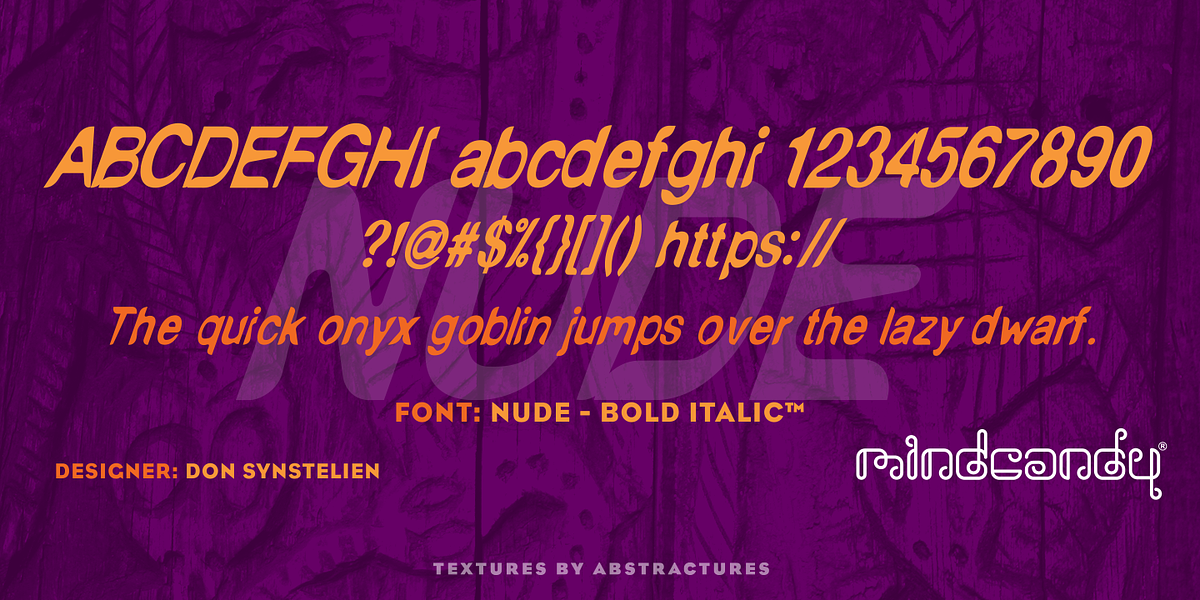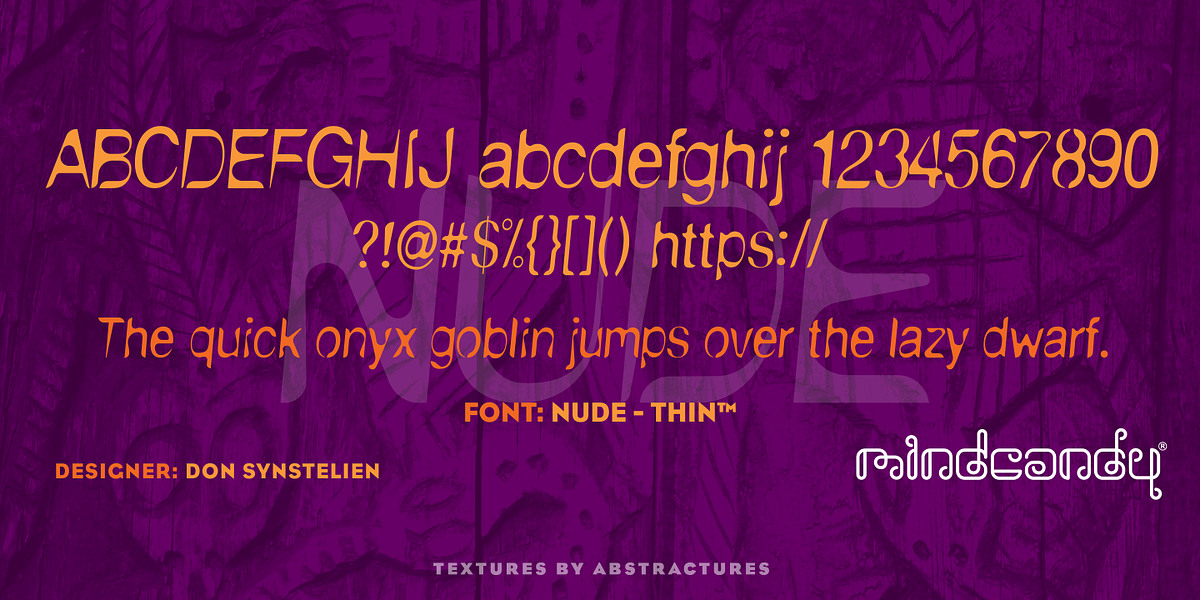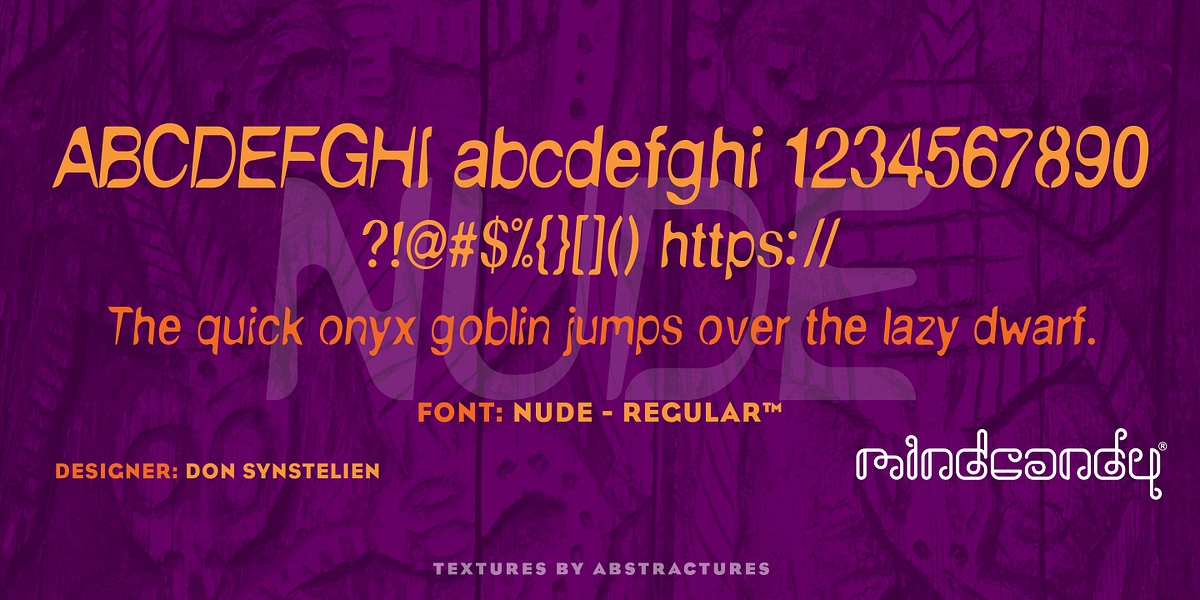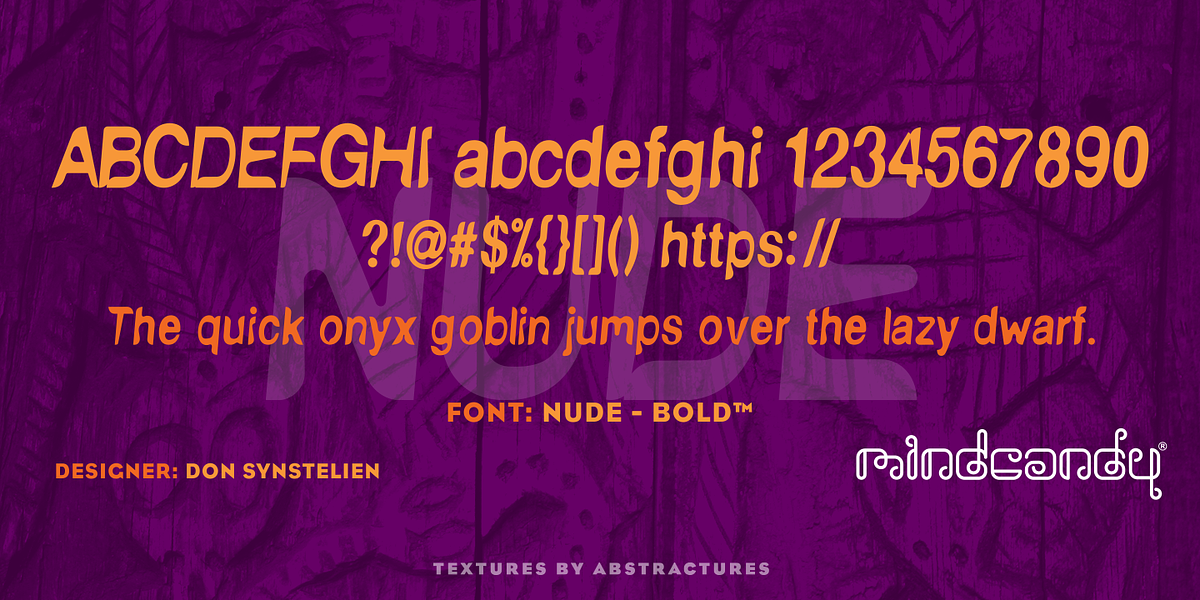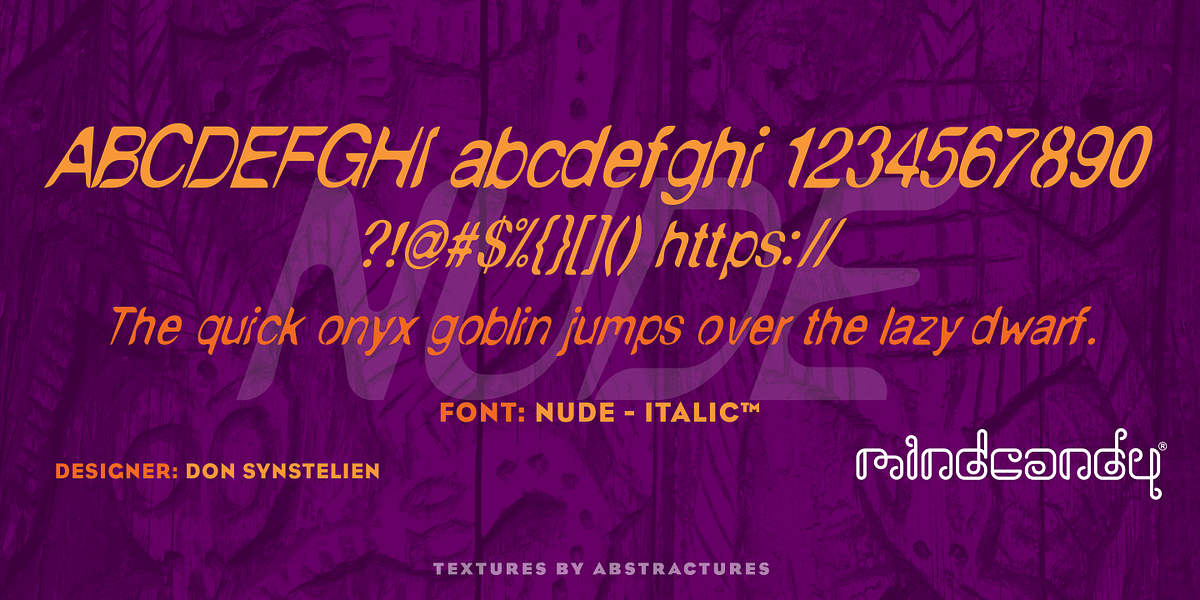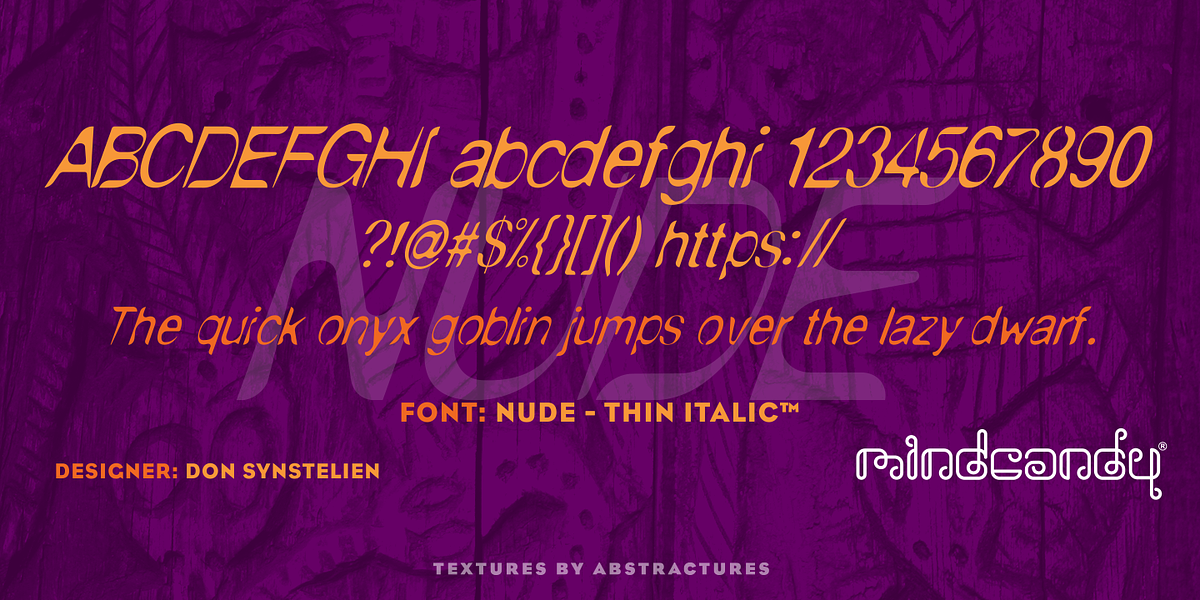
NudE™
This display script font evokes a sense of vintage drama with its uneven letterforms and deliberate 'crashed' effect. It would be well-suited for headlines or branding projects aiming for a bold and unconventional aesthetic.